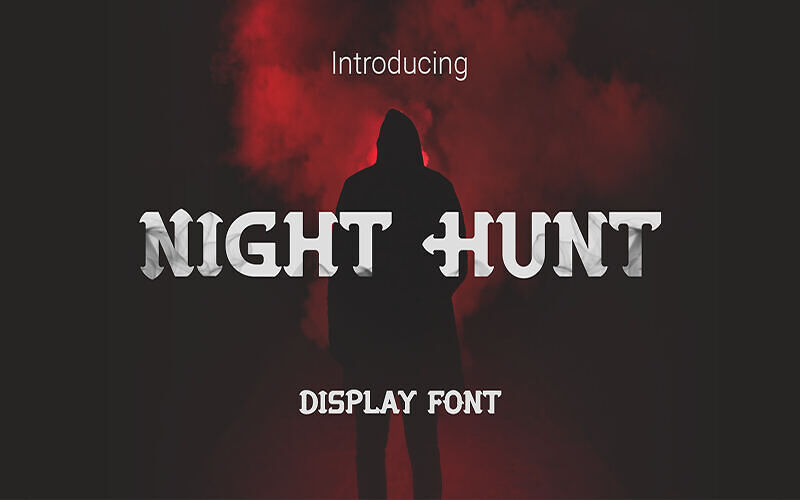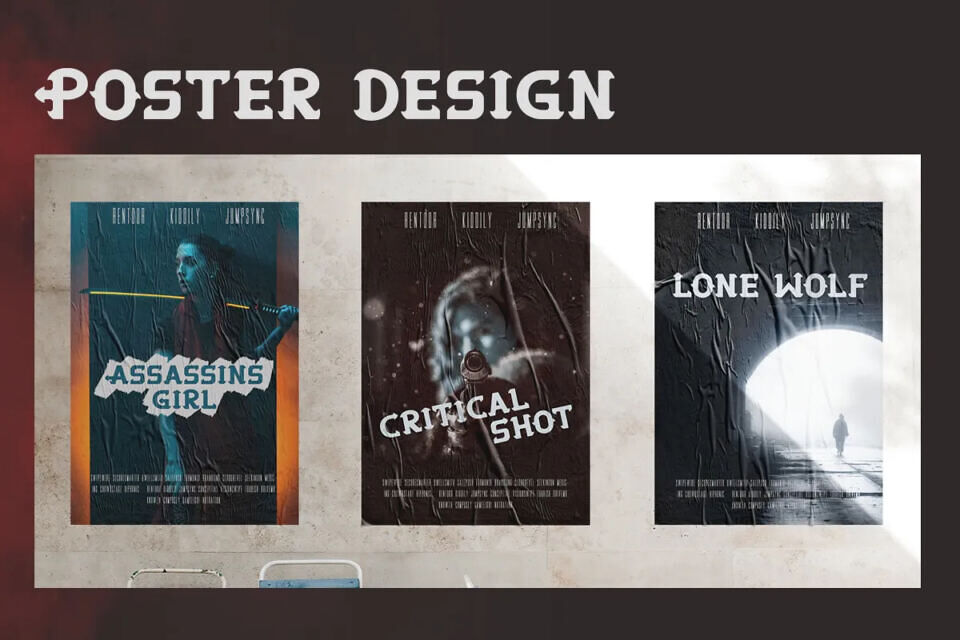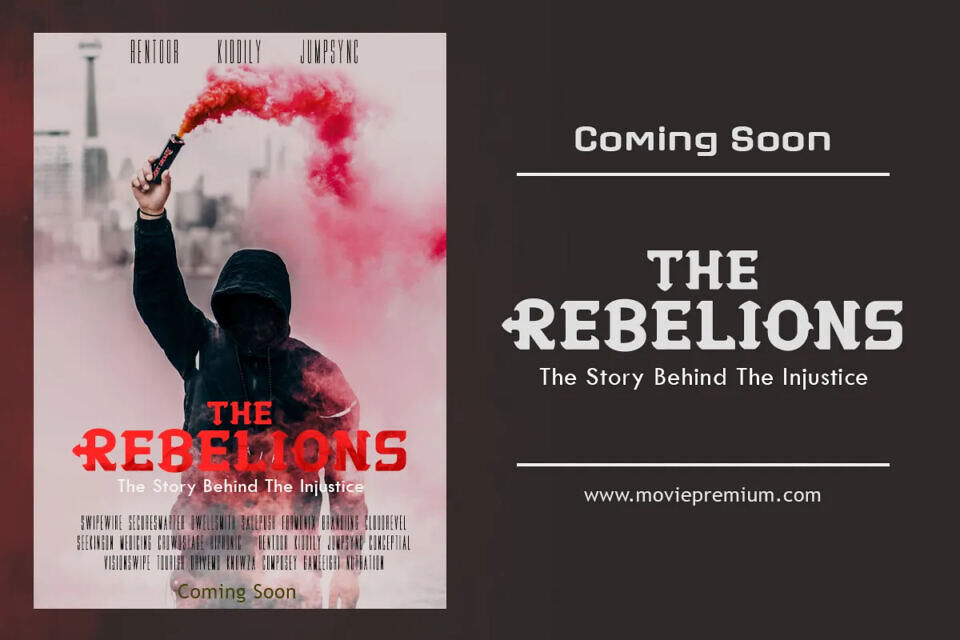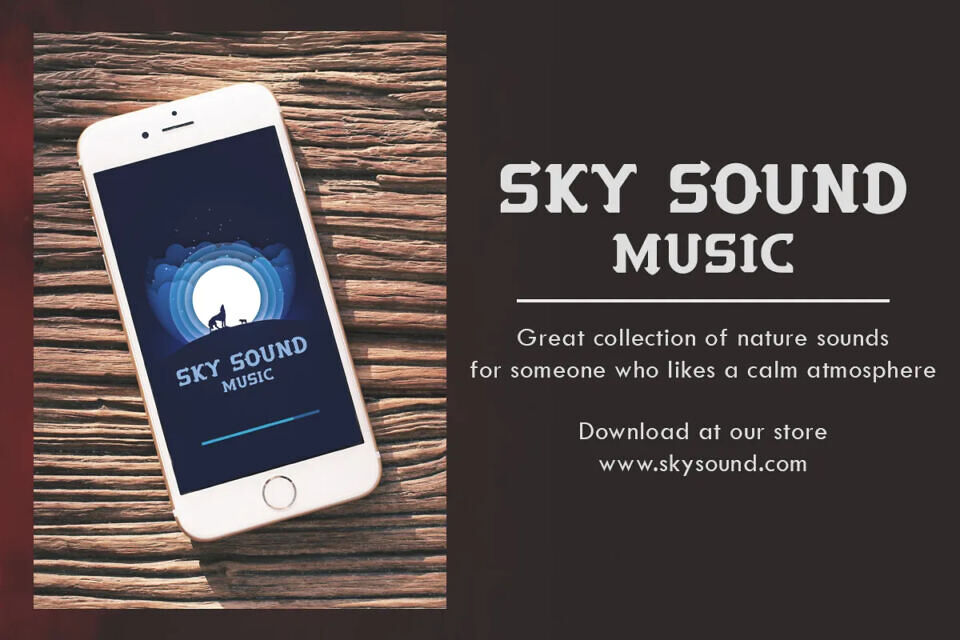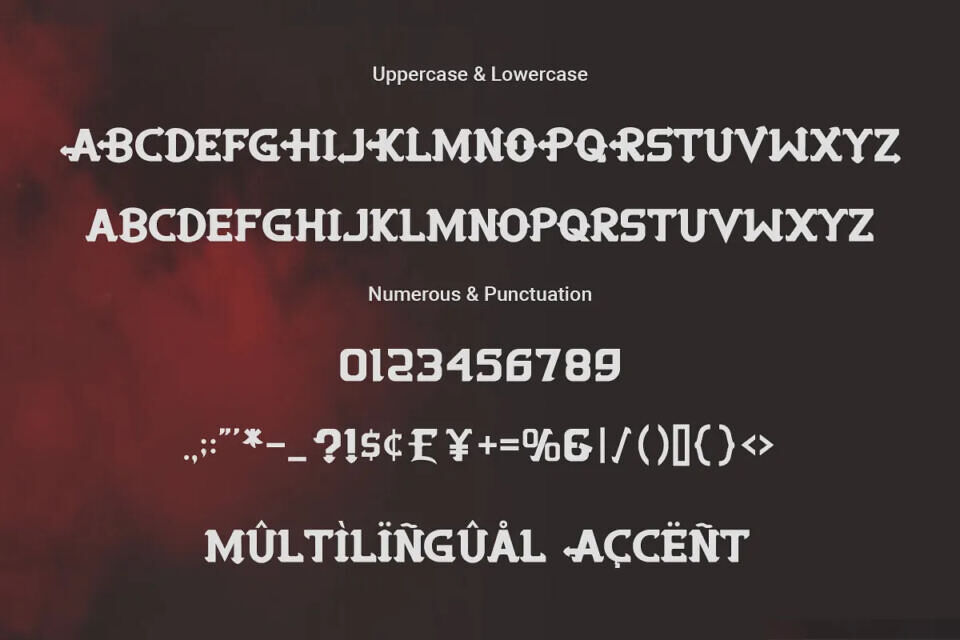
Night Hunt is a bold and dynamic display font that commands attention with its strong and striking letterforms. Designed to evoke a sense of mystery and intensity, this font is perfect for projects that need a powerful and dramatic touch.
Its robust structure makes it ideal for horror-themed posters, game titles, album covers, or any creative work that demands a bold statement. With Night Hunt, your designs will stand out and leave a memorable impact on the audience.